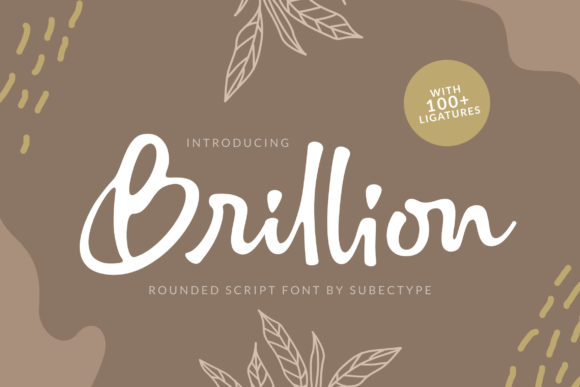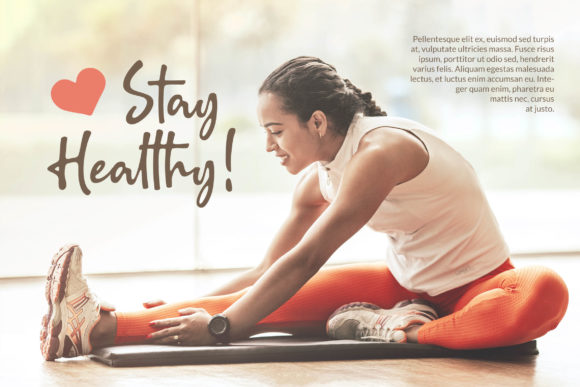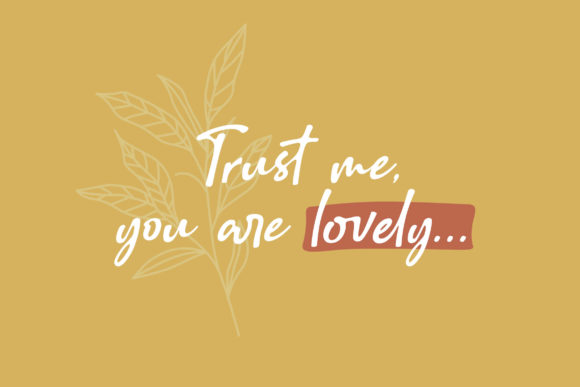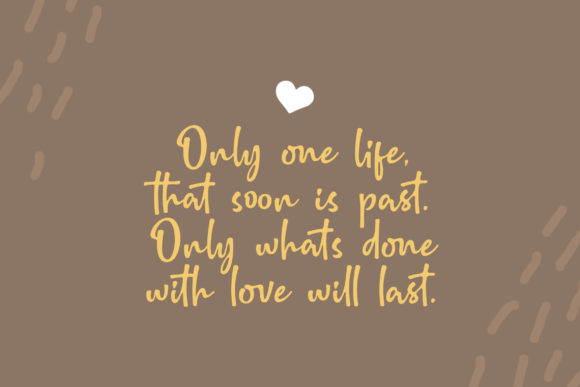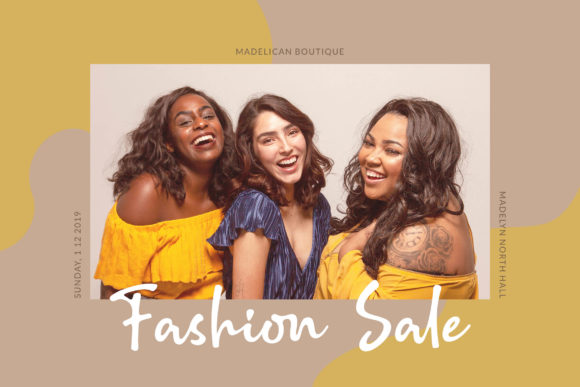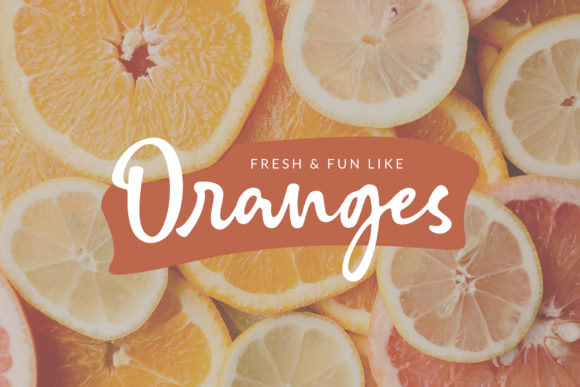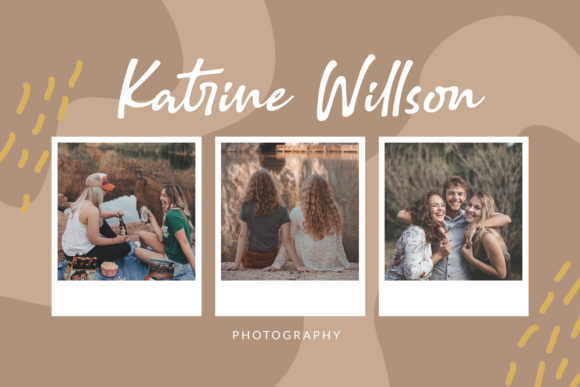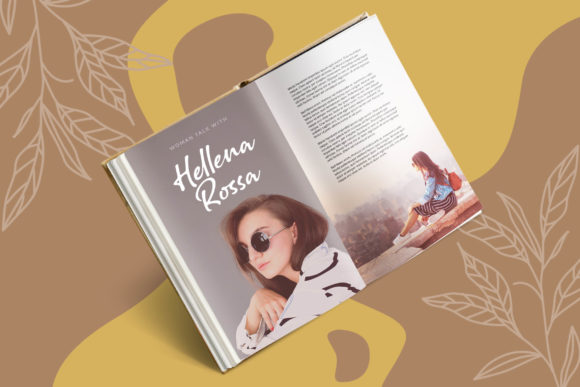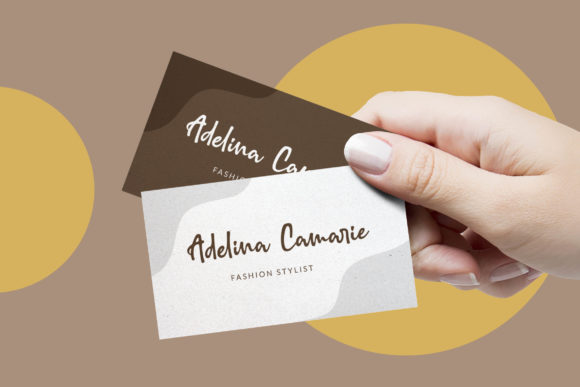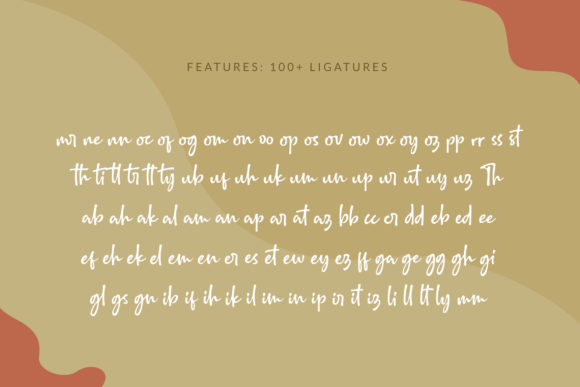
HomeScript FontsBrillion Font Script Fonts Brillion Font FacebookXPinterestWhatsApp Brillion Font Poster 2 Brillion Font Poster 3 Brillion Font Poster 4 Brillion Font Poster 5 Brillion Font Poster 6 Brillion Font Poster 7 Brillion Font Poster 8 Brillion Font Poster 9 Brillion Font Poster 10 Brillion Font Poster 11 Brillion Font Poster 12 About Brillion Font Brillion is a sweet and lovely script font that will elevate any design idea. Get inspired by its unique charm! DOWNLOAD ON CREATIVE FABRICAThis font is sold and delivered by Creative Fabrica. Font Canyon may earn a commission if you buy through this link. People also explored Sembilu Script Font Merethyl Font Islandia Font Happy Halloween Font Realistic Mock-ups on Vintage Background Permanence Culture Font Great Britain Font Haunted Pumpkin Font 334 0 TagsBrillion Font Previous articleBirdspring FontNext articleSam Lonica Font LEAVE A REPLY Cancel reply Comment: Please enter your comment! Name:* Please enter your name here Email:* You have entered an incorrect email address! Please enter your email address here Website: Save my name, email, and website in this browser for the next time I comment. Personal Use Free Clumed Personal Use Free Read more about this font Bellarin Personal Use Free Read more about this font Equalizer Script Personal Use Free Read more about this font Abingdon Personal Use Free Read more about this font BLOG Modern Sans-Serif Fonts That Brands Love in 2025 In 2025, modern sans-serif fonts remain a top choice for brands looking to project clarity, professionalism, and... Free vs Paid Fonts: Why Investing in Premium Fonts Is Worth It Free Fonts Risk: Why Free Fonts Can Be Dangerous for Designers The 10 Best Handwriting Fonts to Add Personality to Your Designs